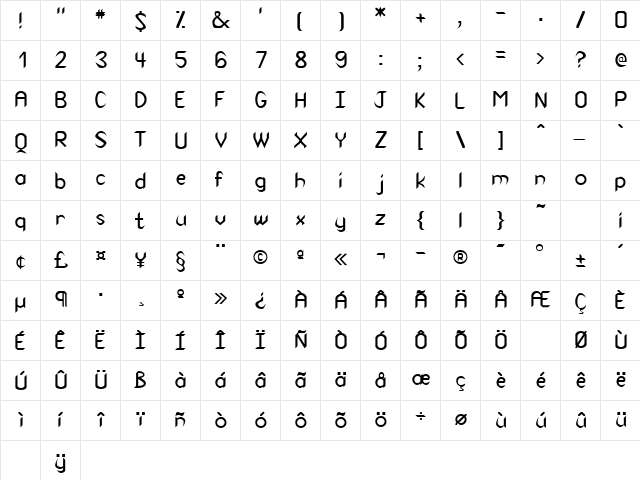
Lakeland Regular
Design Context for Lakeland Typeface
Lakeland takes a measured approach to typography — its balanced proportions and neutral character make it a reliable workhorse for both digital and print work.